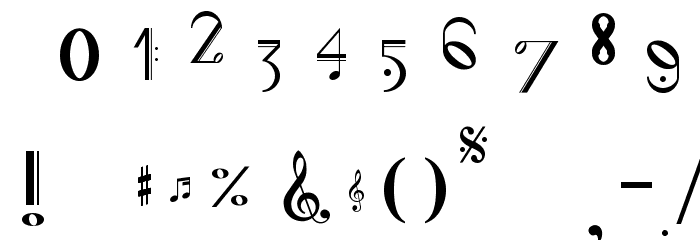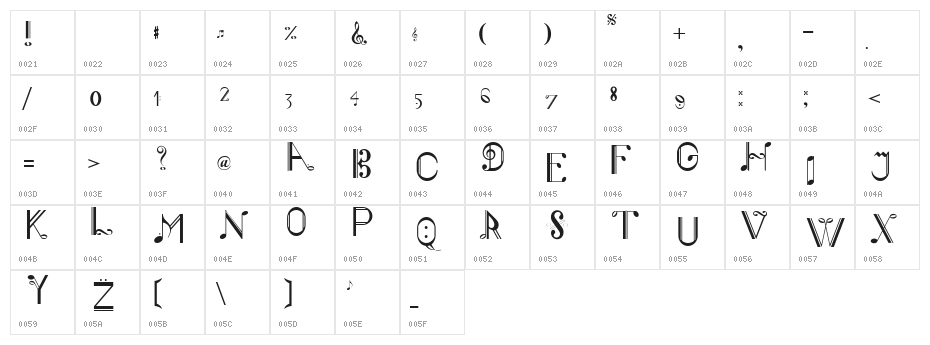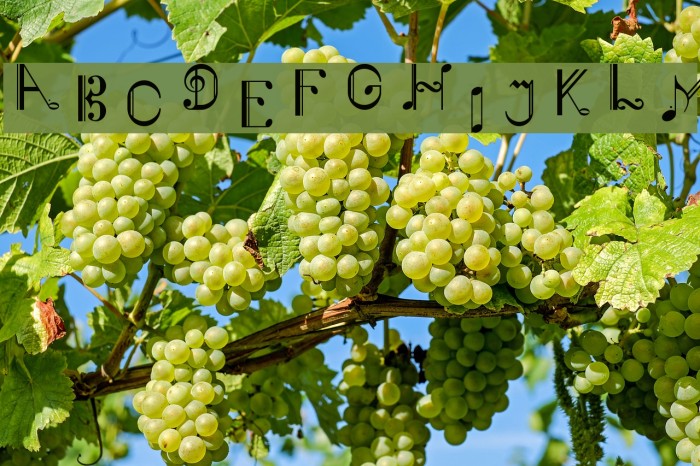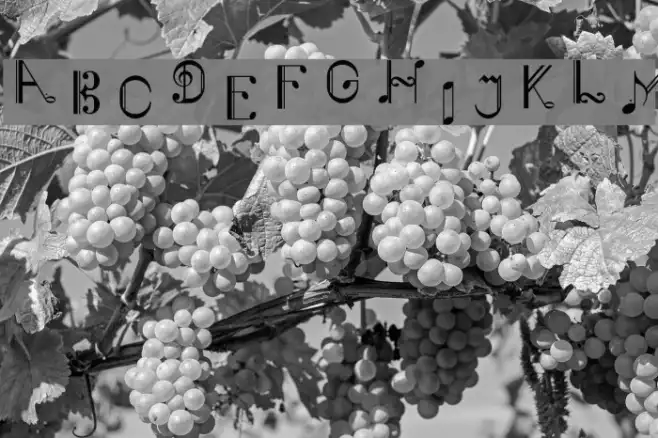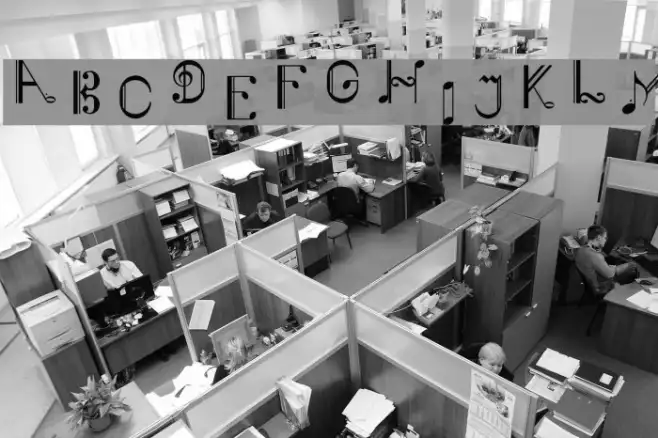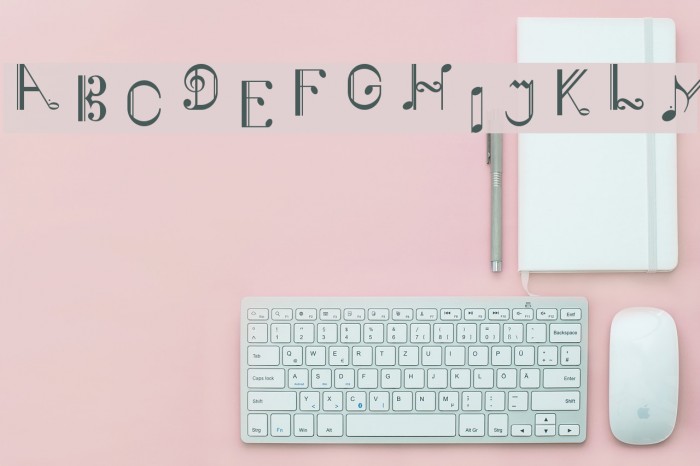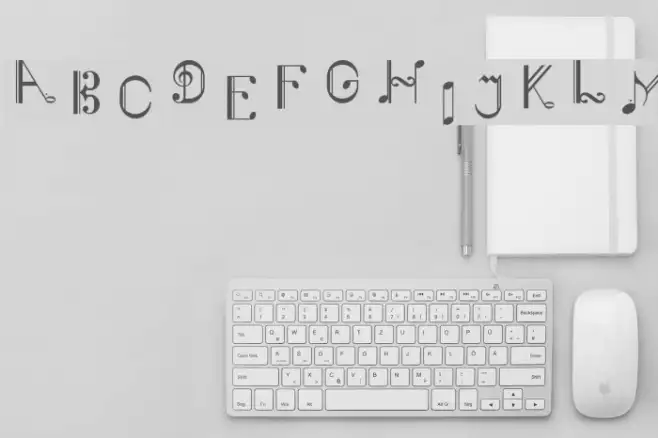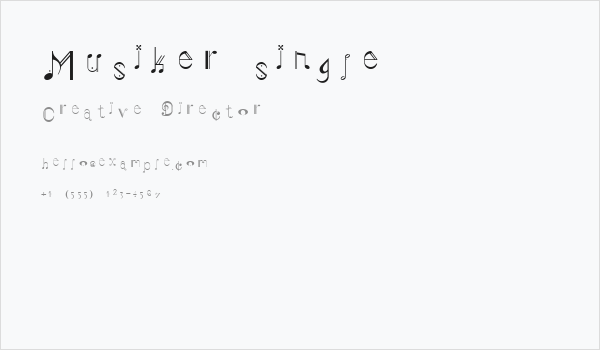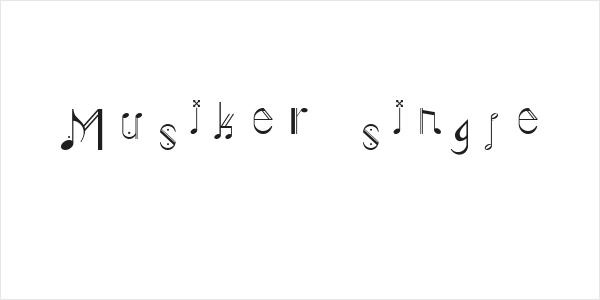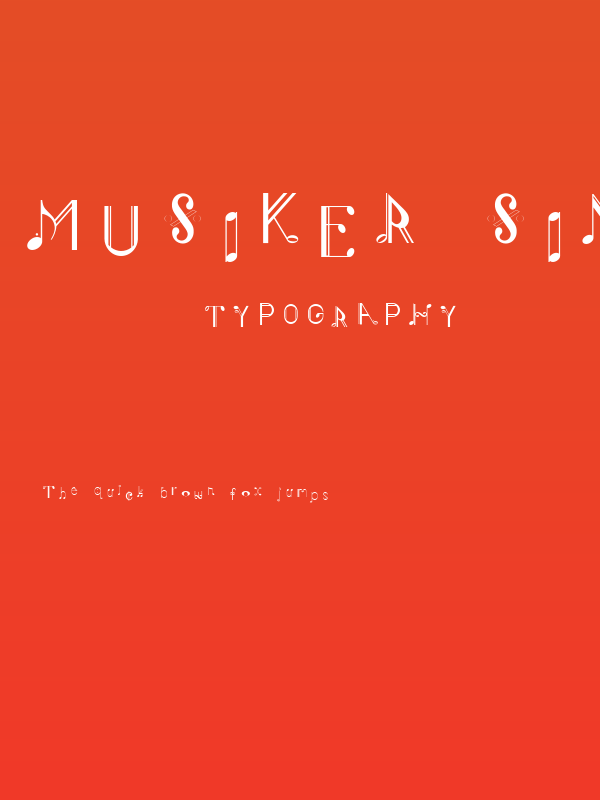
Musiker single Font
Musiker single Description
This font features a unique and playful design, incorporating musical elements into its characters. Each letter is adorned with musical notes, clefs, and other related symbols, creating a whimsical and artistic appearance. The uppercase letters are bold and decorative, while the lowercase letters maintain a consistent style with added musical embellishments. The numbers and special characters continue this theme, making the font ideal for creative and themed projects. Its distinct style makes it stand out, perfect for capturing attention in a variety of contexts.
| Proposed Projects | Ideal for music-related projects, event posters, album covers, and creative branding. |